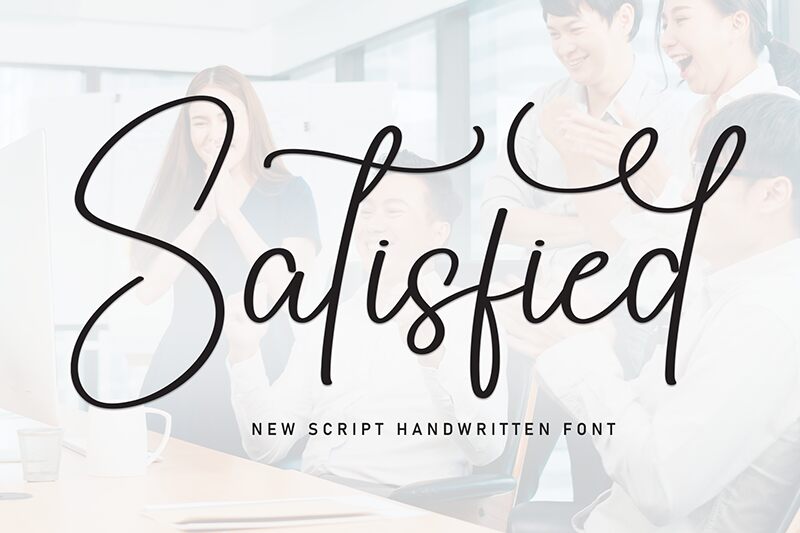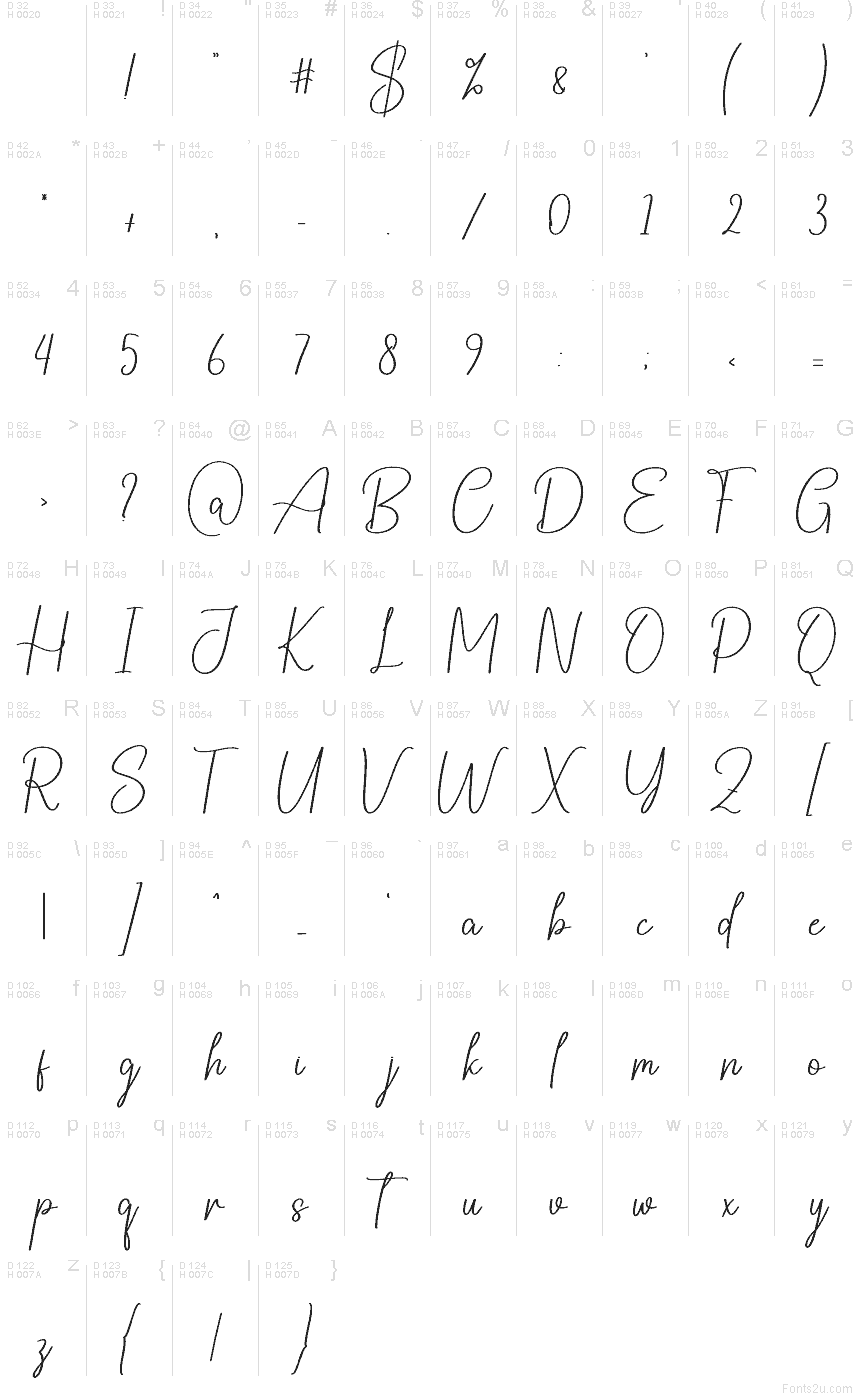
Satisfied
Satisfied font by Scratchones is a free handwritten script typeface with a breezy, ink-on-paper feel. Tall, looping letters and gentle curves give it the ease of a quick, confident signature, while the consistent stroke keeps it tidy and legible. It feels personal without looking messy, like a note dashed off with a favorite gel pen on smooth stationery.
Using Satisfied, this free font shines on wedding invitations, save-the-dates, boutique logos, product packaging, social media quotes, greeting cards, and blog headers. Its airy rhythm adds warmth and romance without overwhelming your layout. For a polished look, pair Satisfied at larger sizes with a simple geometric sans serif for supporting text.